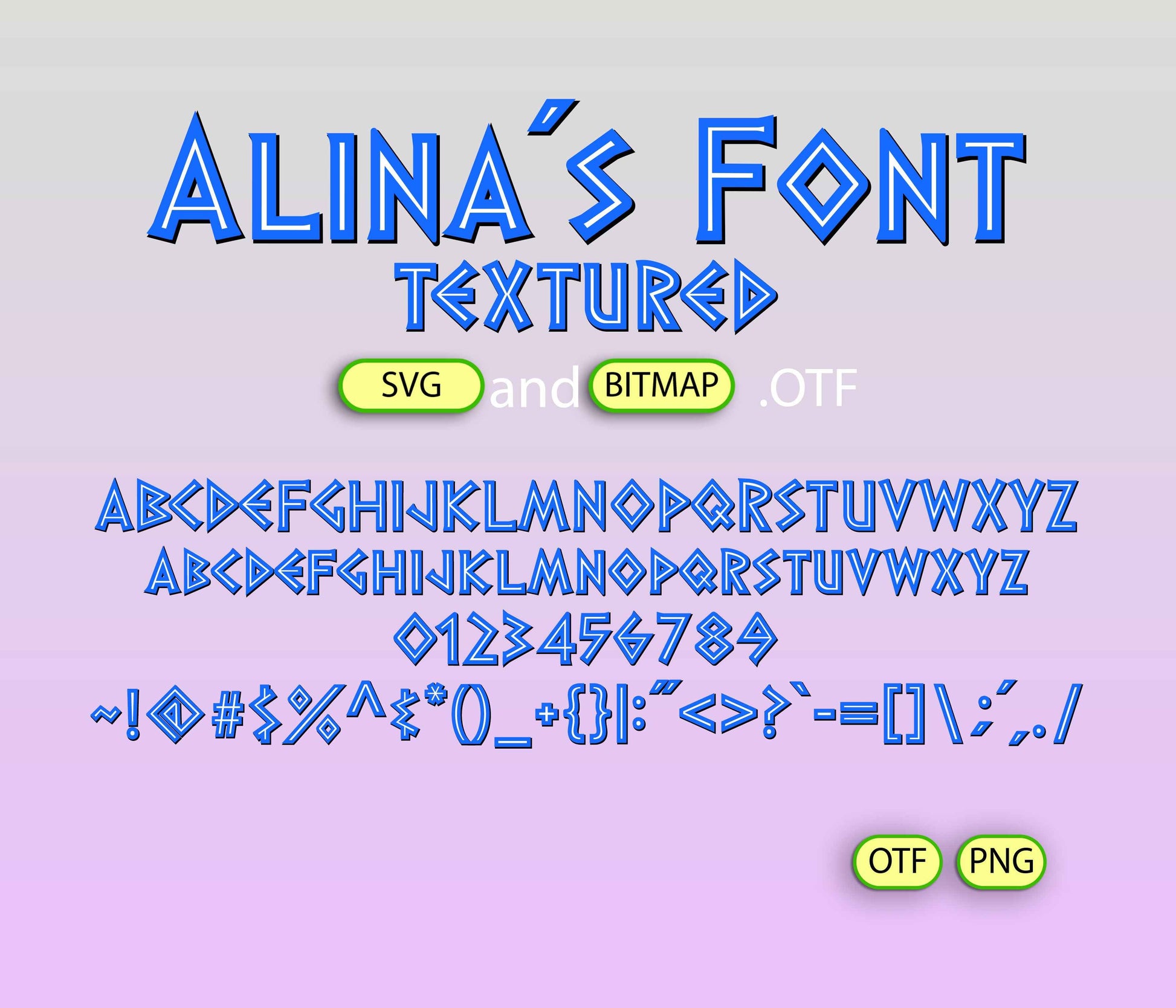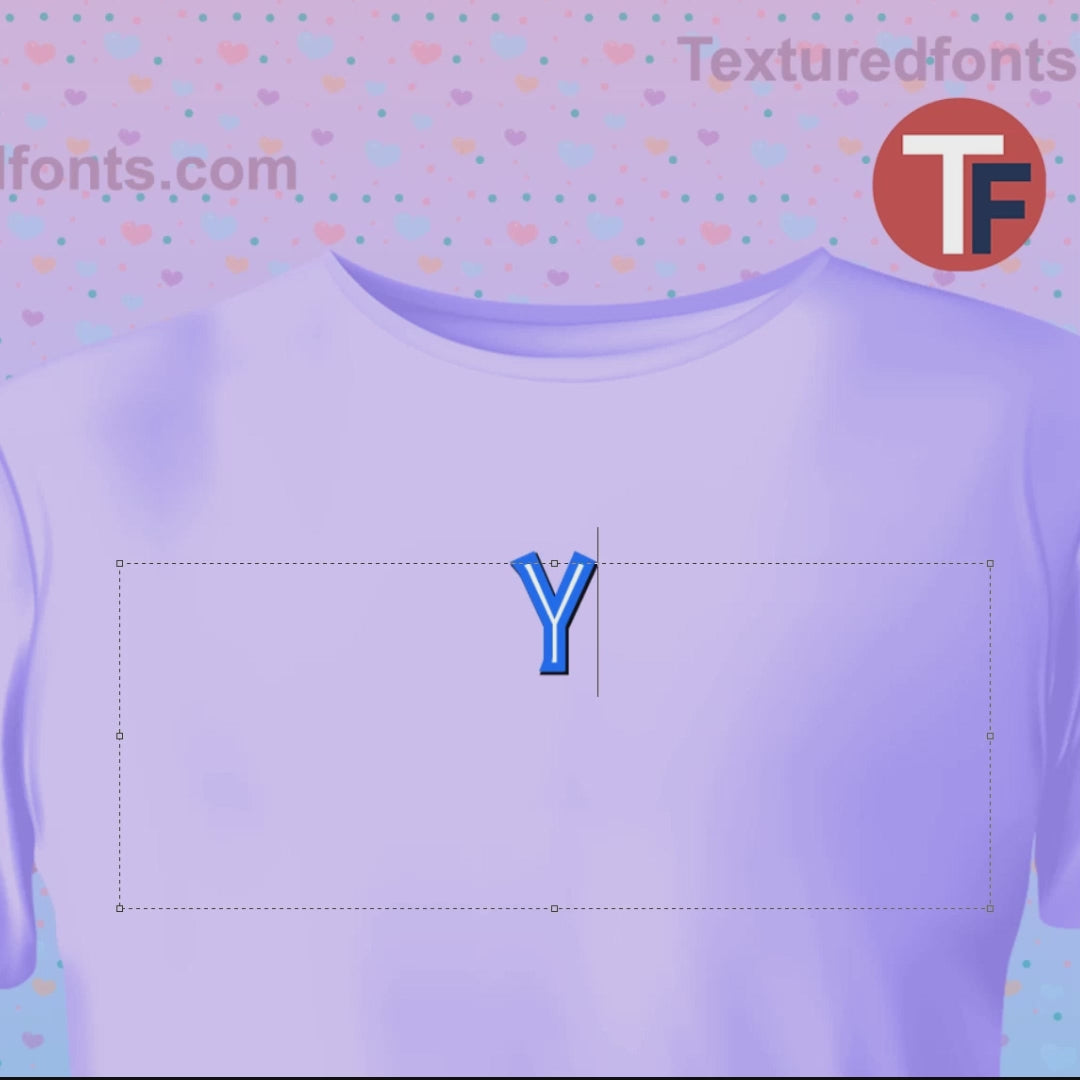
FREE Ancient Greek Font Textured
Channel Ancient Elegance with the Greek Font
Immerse your designs in the rich history and classical beauty of ancient Greece with our Greek-inspired font. Perfect for those who appreciate the artistry and philosophical depth of Greek culture, this font captures the essence of ancient inscriptions and architectural lettering found in historical texts and ruins. Whether you're creating educational materials, designing elegant event invitations, or crafting promotional content for cultural exhibitions, our Greek font ensures your projects are imbued with authenticity and sophistication.
Our Greek-inspired font features clean, sharp lines combined with the traditional styling of ancient Greek characters, offering a modern twist on classical design elements. This font is meticulously crafted to include a comprehensive character set—uppercase, lowercase, numbers, and special symbols—making it suitable for a broad array of applications:
- Educational Content: Ideal for presentations, textbooks, and learning apps focused on history or literature.
- Cultural Events: Enhance materials for festivals, museum exhibits, or cultural presentations.
- Literary Publications: Use in publishing for books on mythology, history, or classical poetry.
- Branding and Marketing: Create distinctive logos and promotional materials for businesses inspired by Greek aesthetics.
- Personal Projects: Apply to custom artwork, homemade crafts, or themed party decorations.
Our Greek-inspired font is more than just a typeface; it's a gateway to the past, allowing you to connect with the timelessness of Greek culture. Whether you're engaging audiences with historical narratives, designing sophisticated event decor, or developing educational tools, this font adds a level of depth and refinement to your work. Let each character you craft carry the legacy of ancient Greece, enhancing your projects with both visual beauty and historical significance.